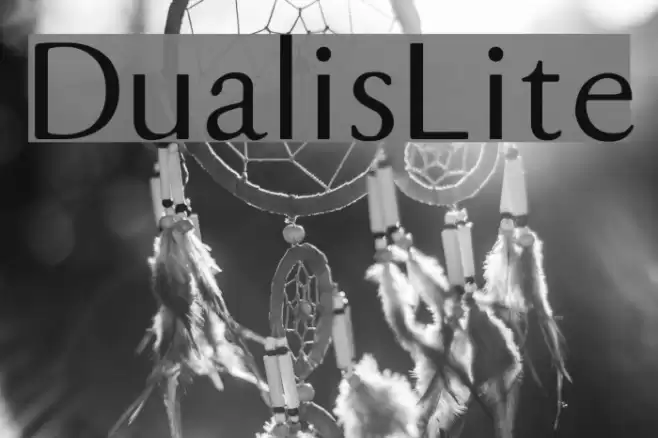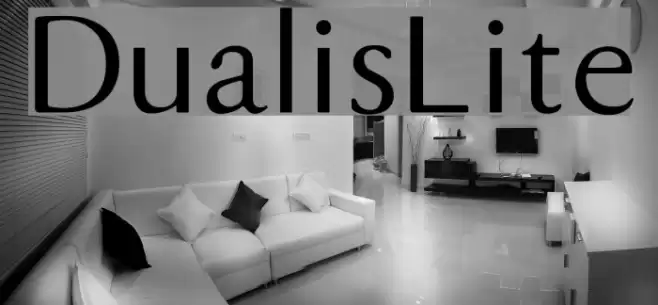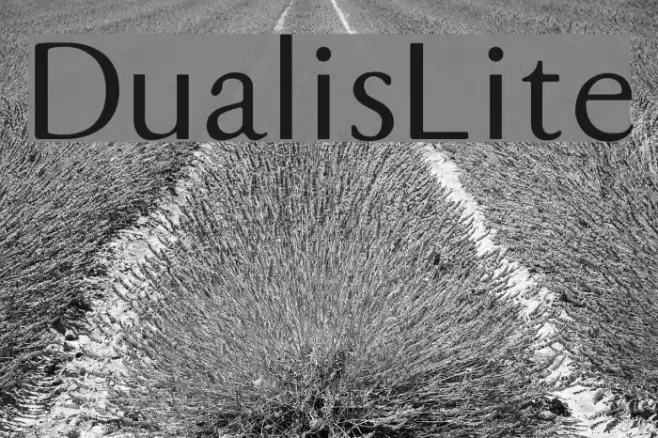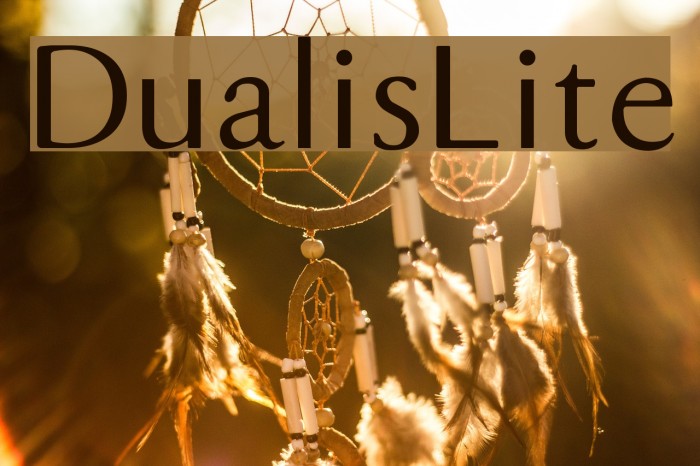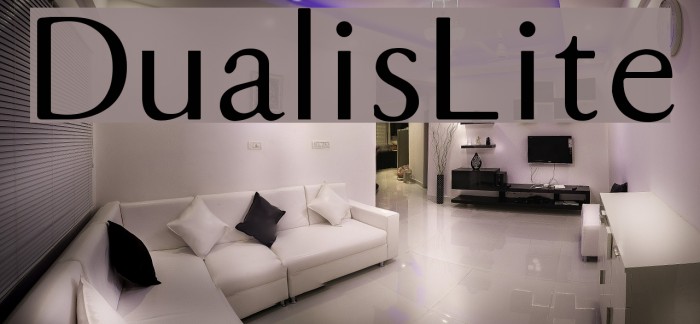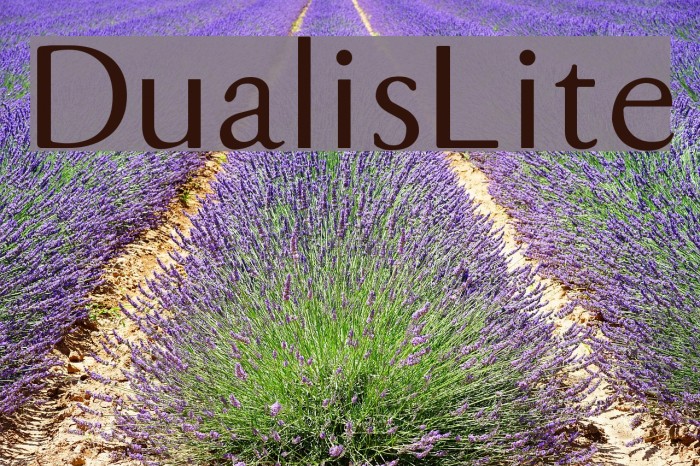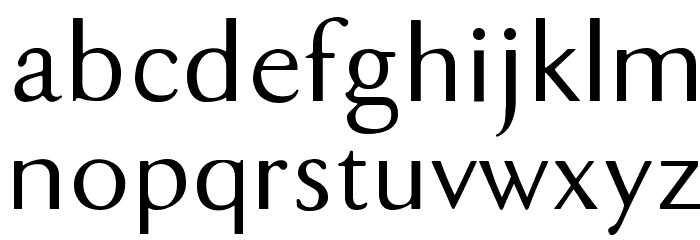
DualisLite Font
DualisLite Description
This font features a clean and modern design with a sans-serif style. The characters are well-proportioned, offering a harmonious balance between curves and straight lines. The uppercase letters are bold and assertive, while the lowercase letters maintain a friendly and approachable appearance. The numerals are clear and easy to read, making them suitable for various applications. Special characters are included, providing versatility for different contexts. The overall design is sleek and professional, making it ideal for contemporary projects.
A modern sans-serif font with clean lines and balanced proportions.